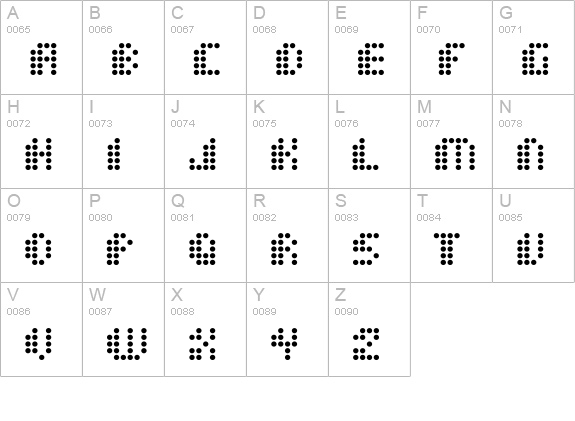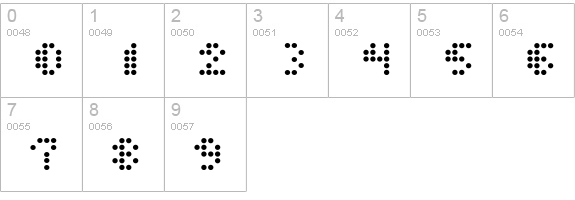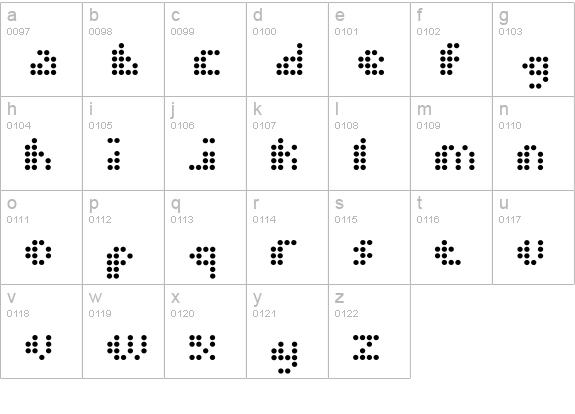
Dot Short of a Matrix font is a cutting-edge and futuristic typeface that will add a touch of modernity to any design project. This unique font features a series of dots arranged in a matrix-like pattern, creating a captivating visual effect. With its sleek and stylish appearance, Dot Short of a Matrix font is perfect for adding a contemporary flair to logos, posters, websites, and more. The best part is that Dot Short of a Matrix font is available for free download at FontsMarket.com. So, you can easily access this innovative font and use it in your projects without any cost. Don't miss out on the opportunity to enhance your designs with the striking visual impact of Dot Short of a Matrix font!